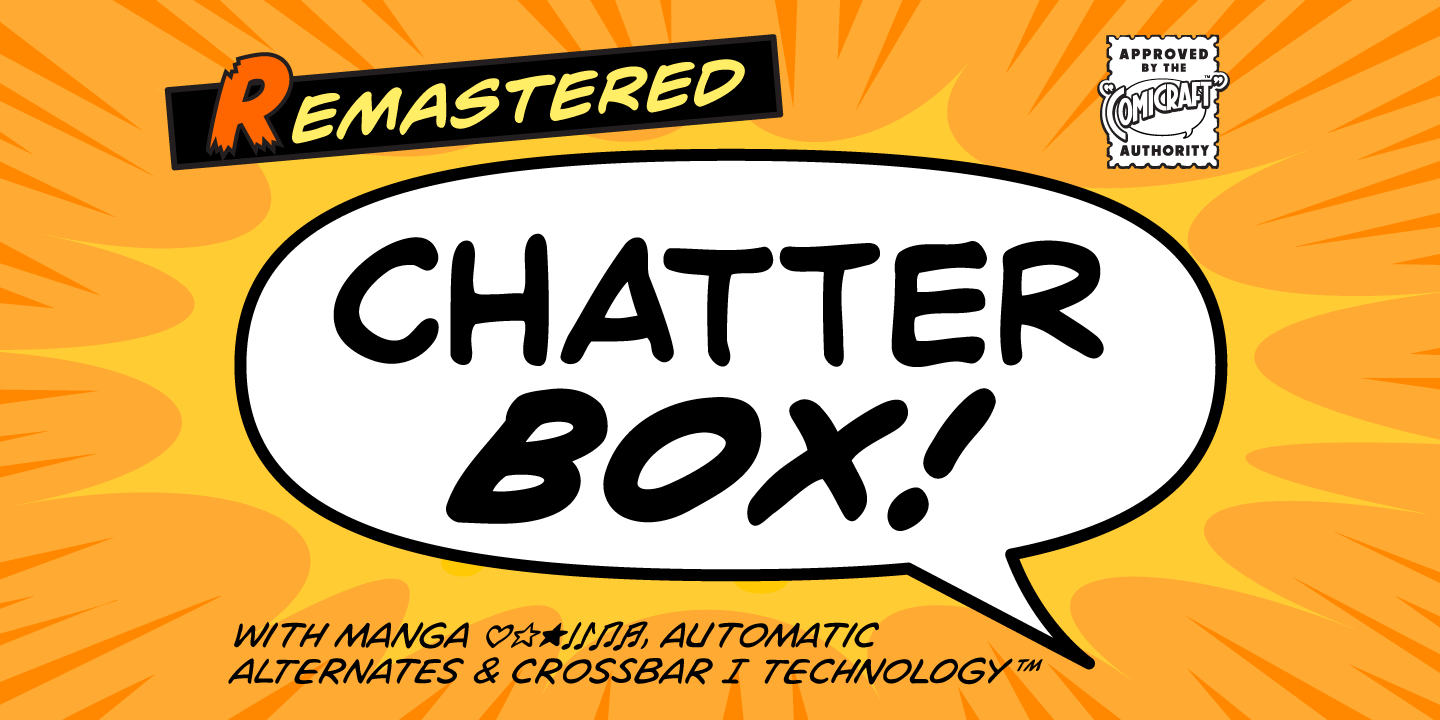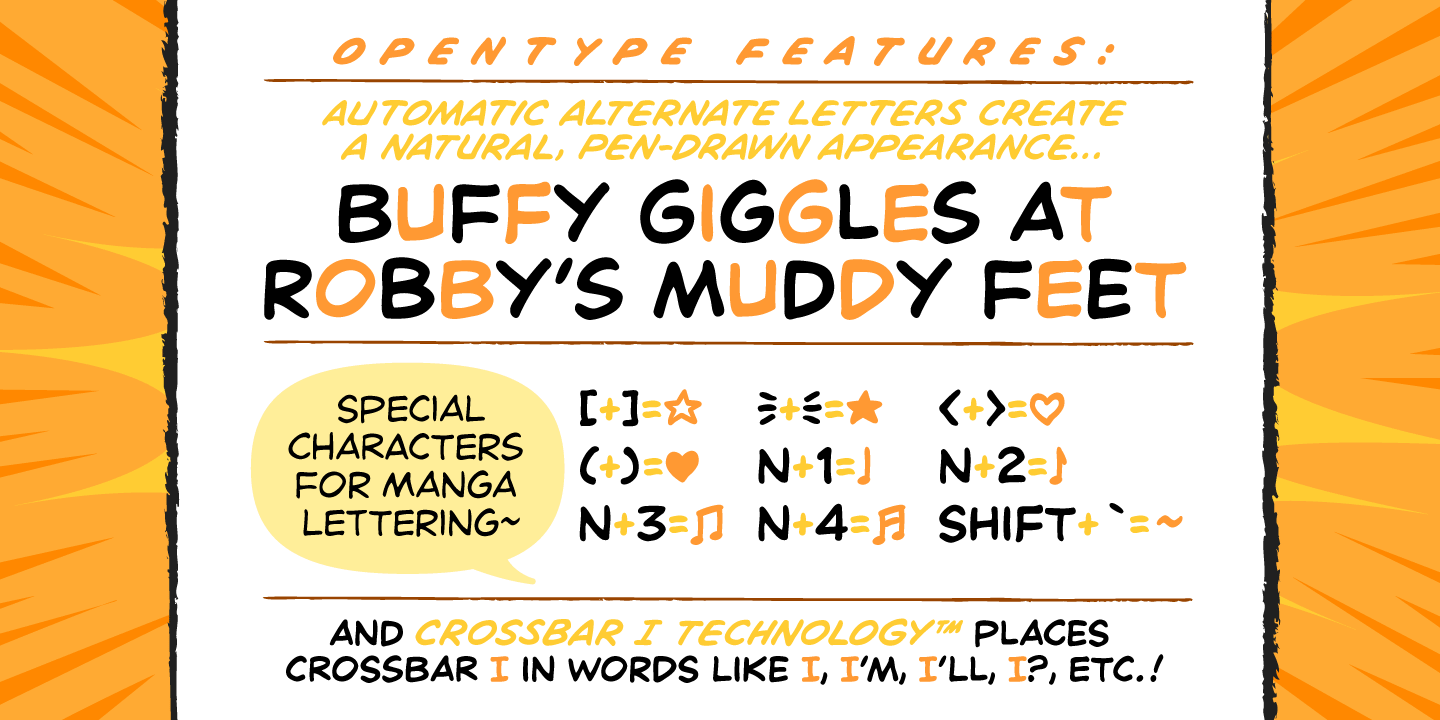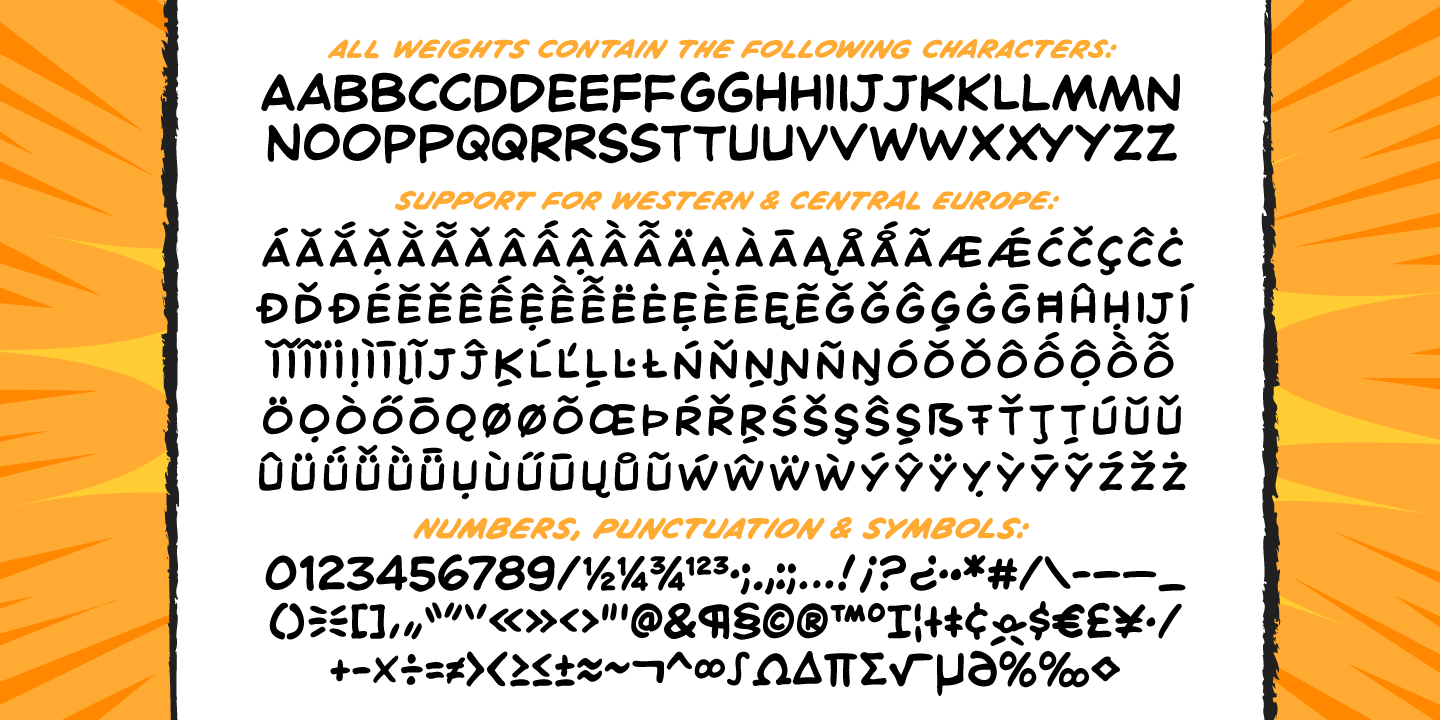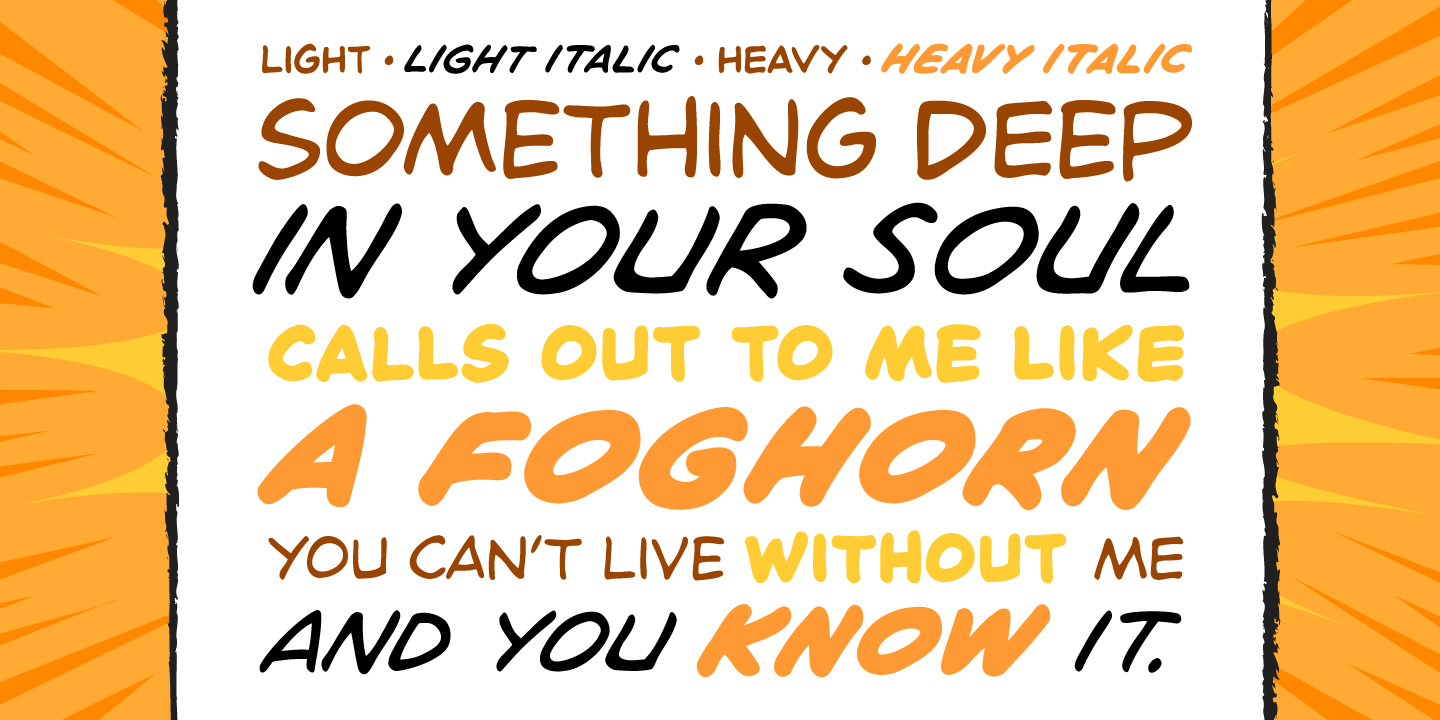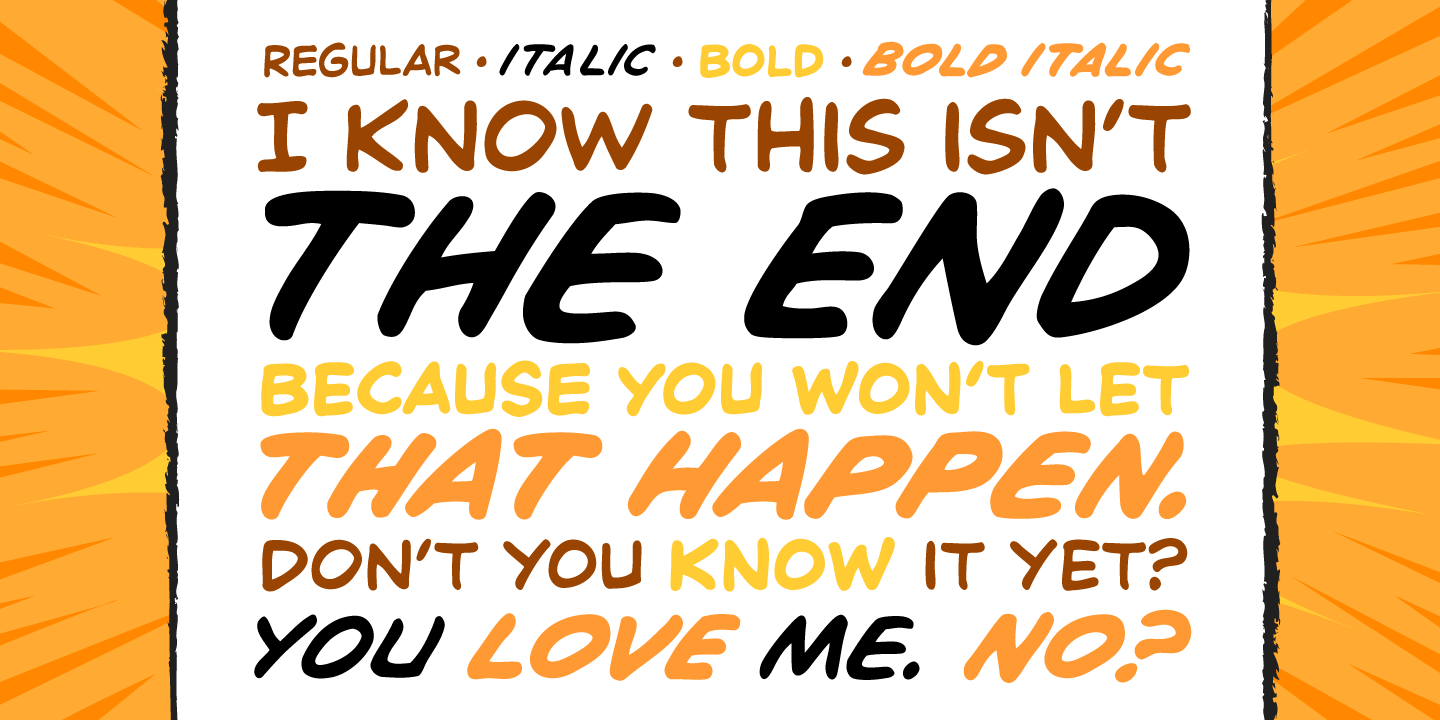
Chatterbox
Font Family by Comicraft Fonts
"Have you seen that new, improved, classic pen lettering style font from Comicraft, it's lovely isn't it? All Silver Age soft and spongy it fair warms the cockles of me heart. Mrs Robinson at number forty three she said she once picked it up for 10p down at the convenience store on the corner, you know the one that's open all night. My Albert gets his Heineken down there late of an evening, and you know what, I saw all manner of strange people down there last week, Marvel super heroes I think they were! Just like in the movies!"